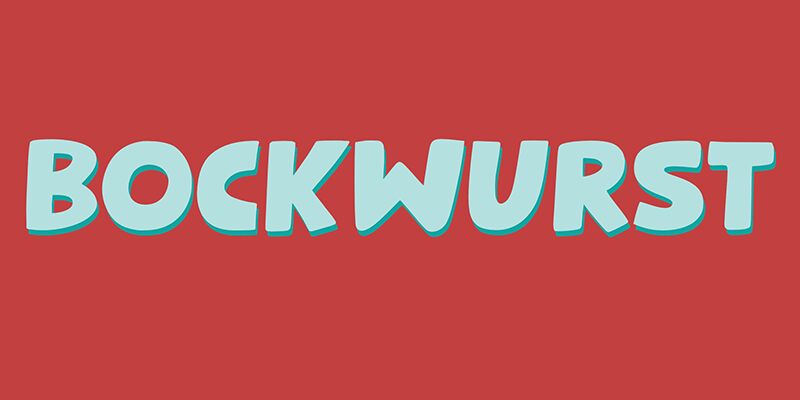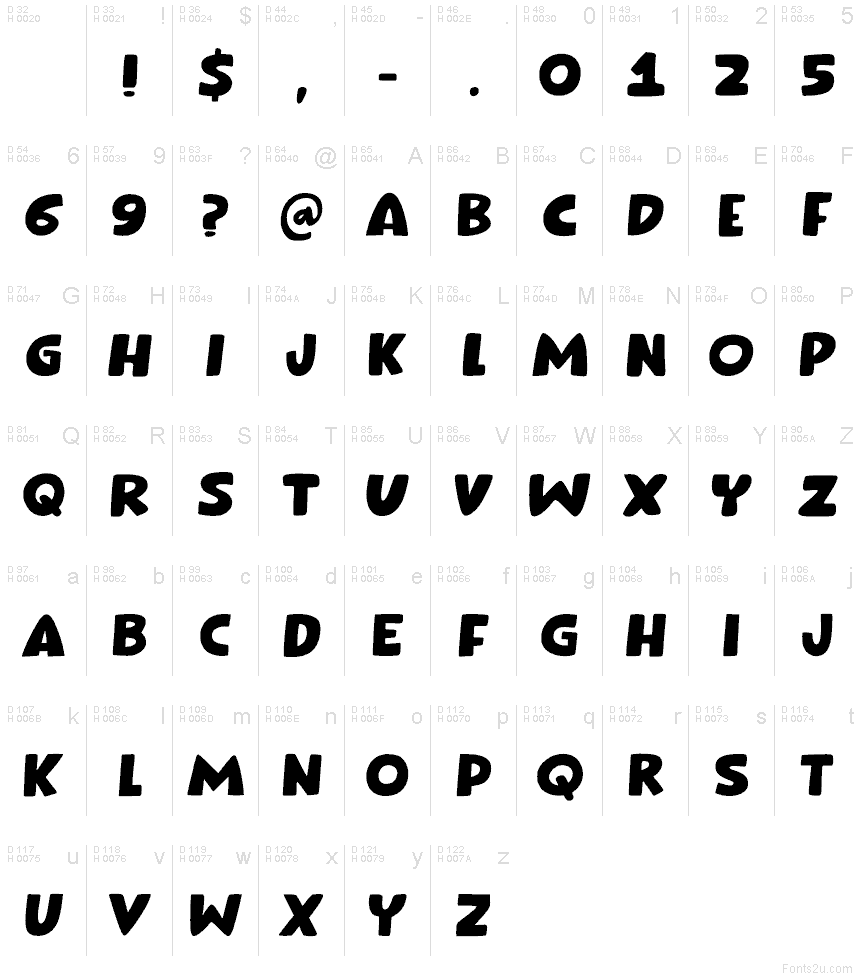
Bockwurst DEMO Regular
Bockwurst font designed by Hanoded is a display font with cartoon style, bold weight, and expanded width. The letters look casual and friendly owing to their smooth flow and cohesive design. This is a retro typeface that can be identified through its outstanding rounded shapes which are joyful and easy to read.
Use the free display font in adding titles and heading in posters or magazines. Also, apply it to logos for vintage brands or stickers for social media posts. Website banners, flyers, packaging designs, badges, certificates, invitations are some other possibilities this font can allow you to explore.